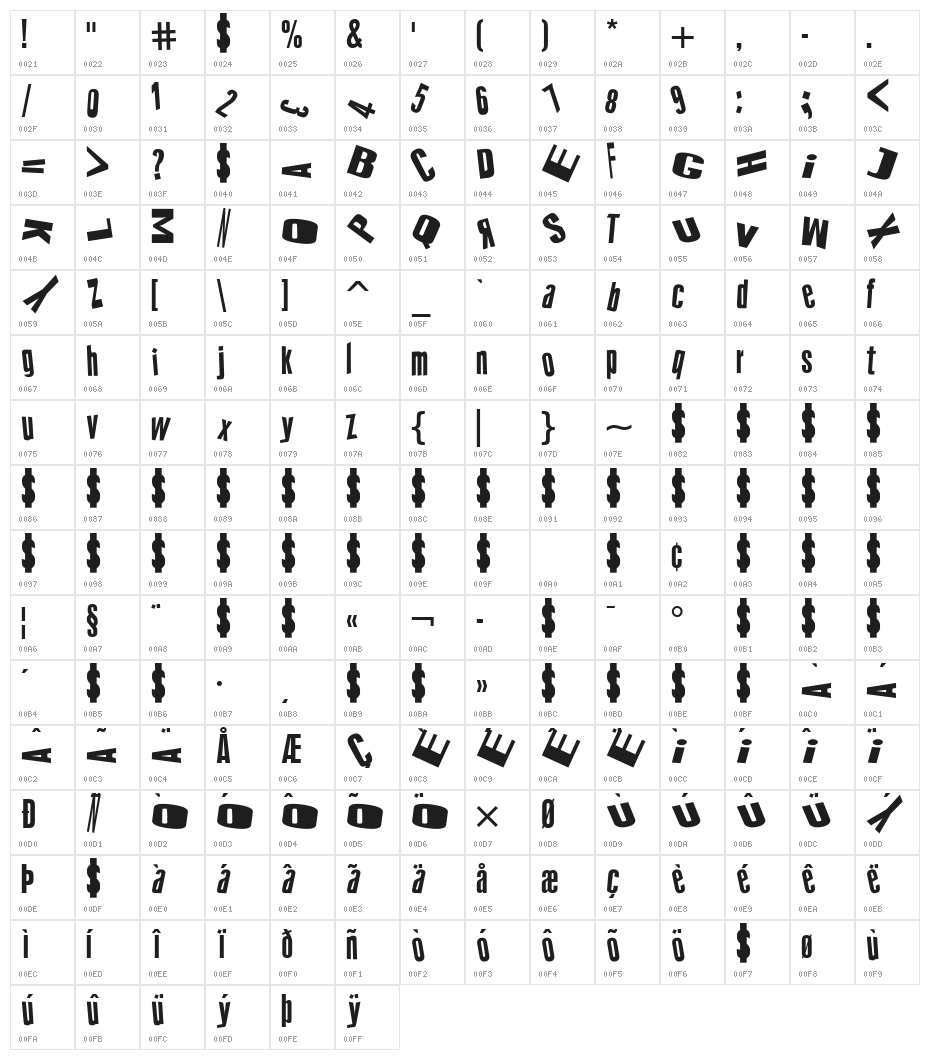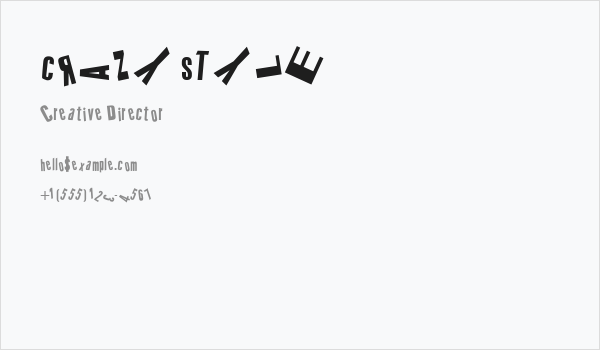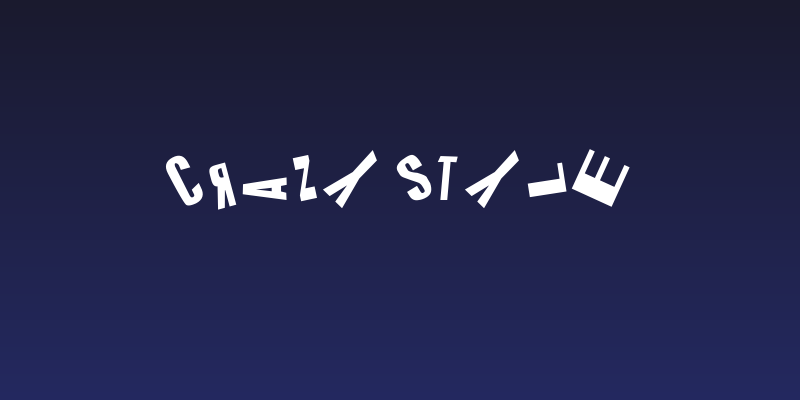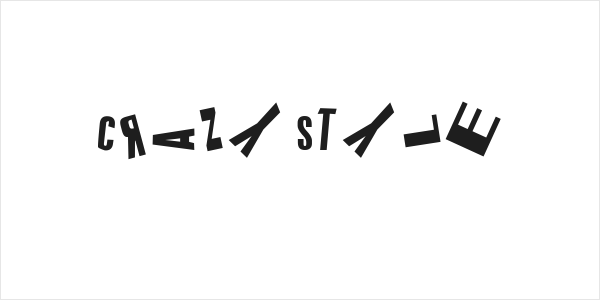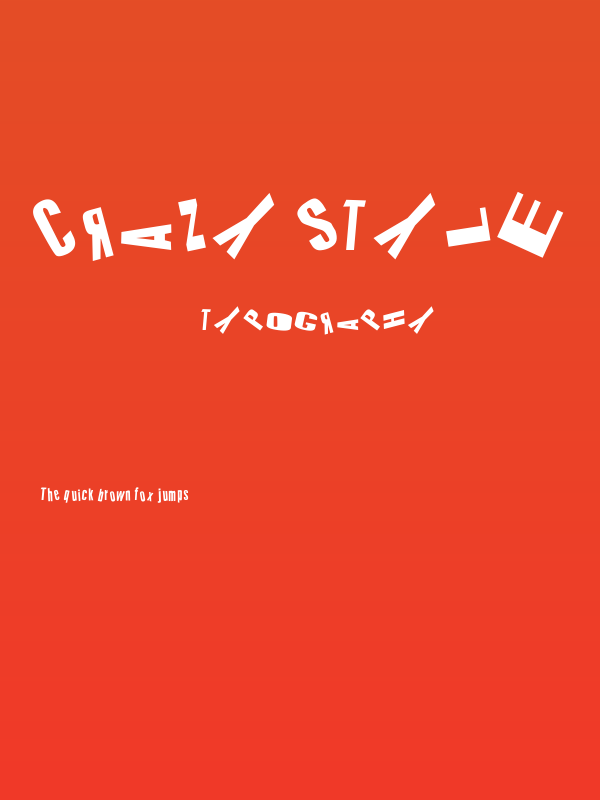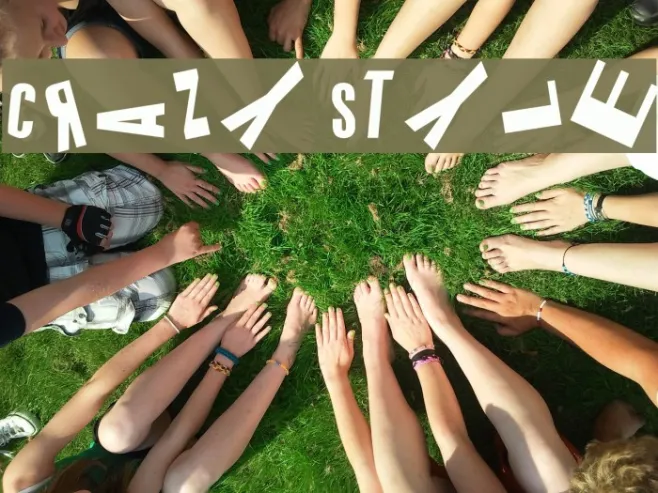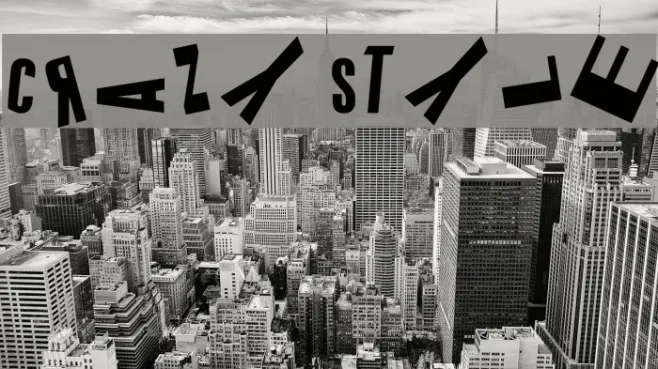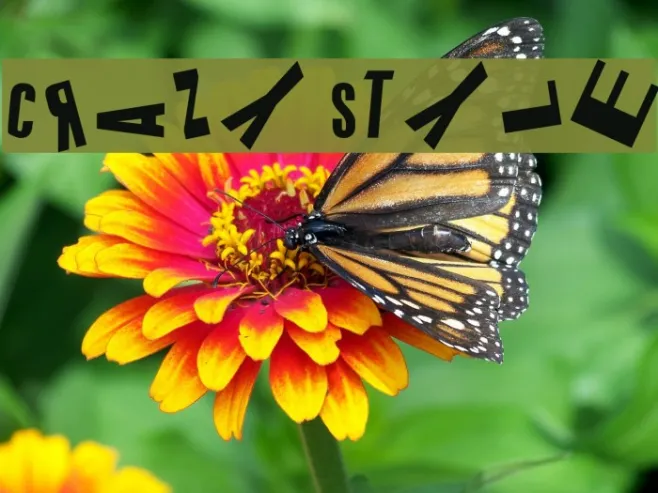
cRAZY sTYLE Font
cRAZY sTYLE Description
This font features a highly eclectic and playful design, with each character exhibiting a unique and exaggerated form. The uppercase letters are particularly bold and dynamic, with varying angles and sizes that create a sense of movement and energy. The lowercase letters maintain a similar whimsical style, though they are slightly more uniform in height. Numbers and special characters follow the same quirky aesthetic, adding to the overall chaotic yet charming appearance. This font is ideal for projects that require a bold and unconventional look, capturing attention with its distinctive and artistic flair.
| Proposed Projects | Ideal for creative posters, album covers, children's book titles, and any project needing a bold, artistic touch. |